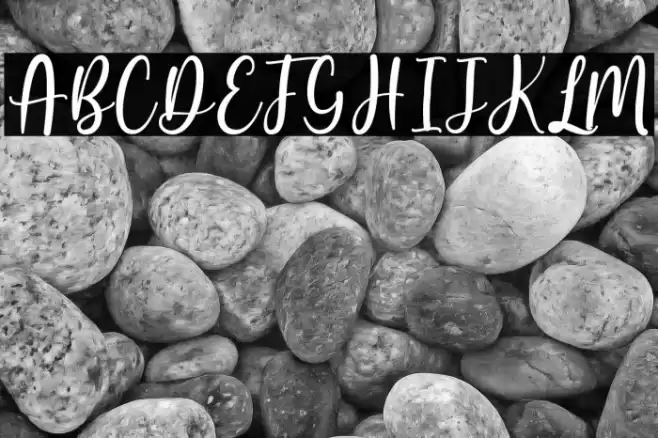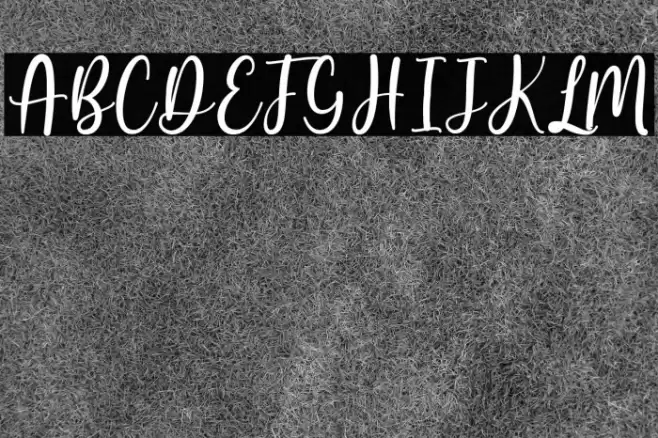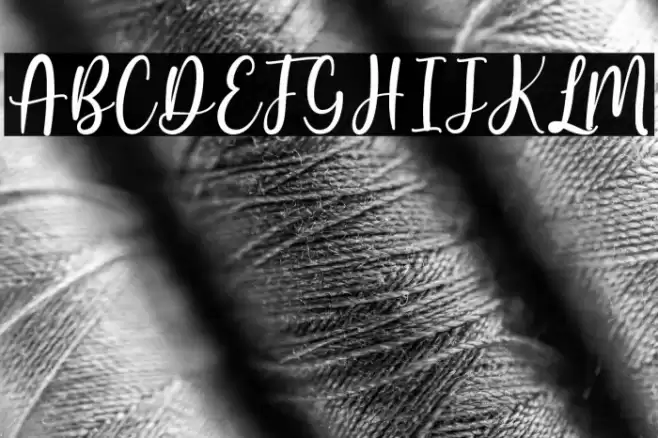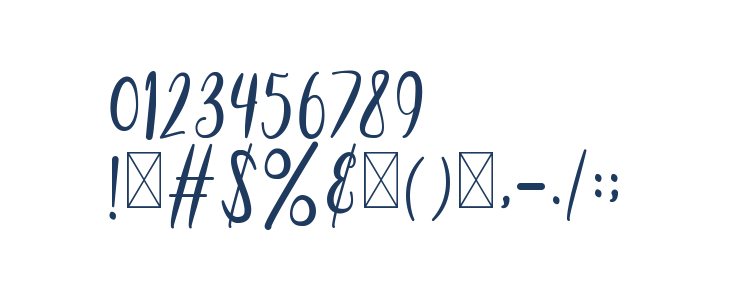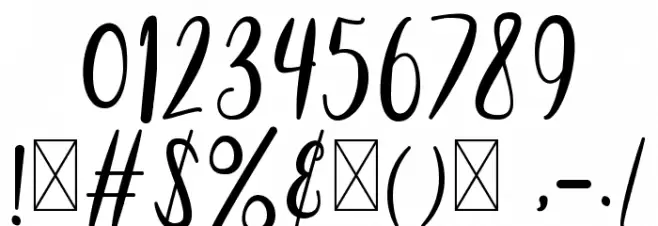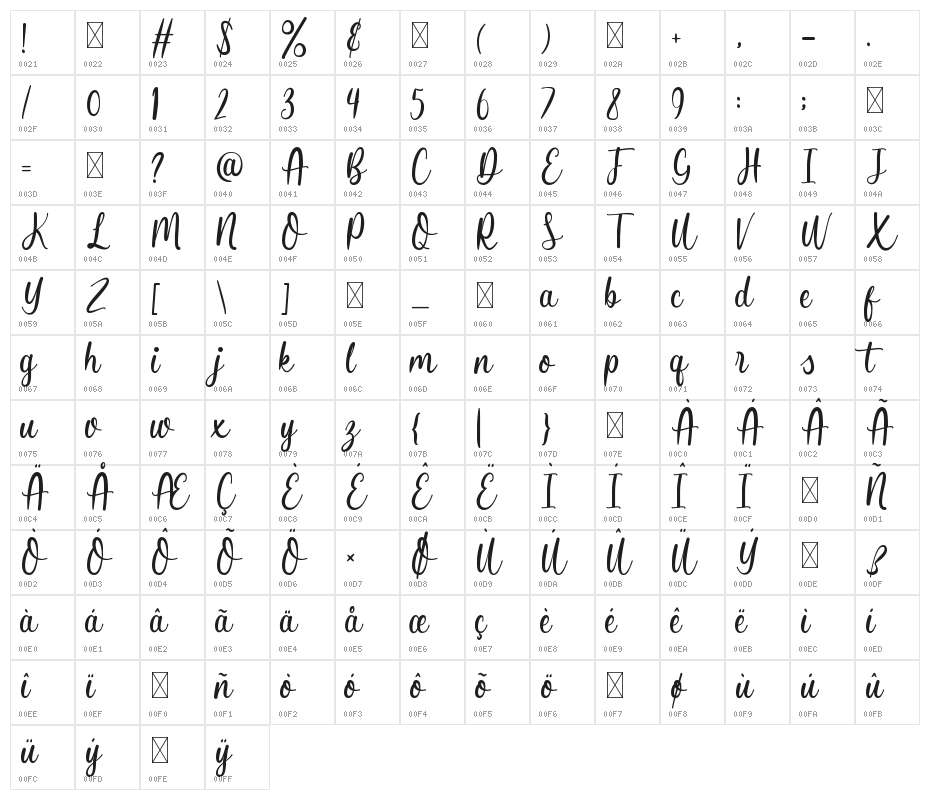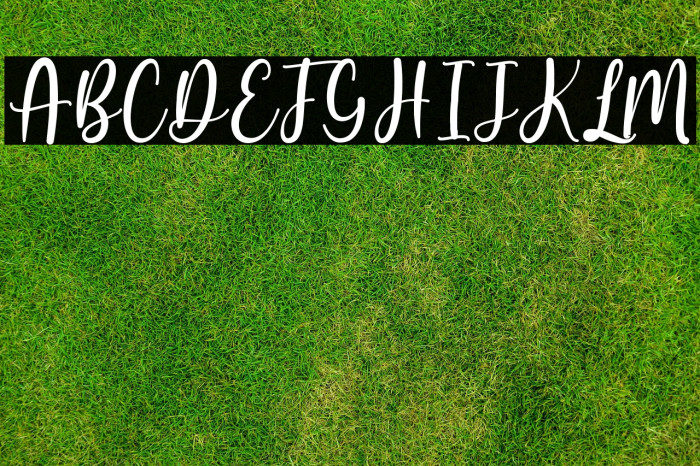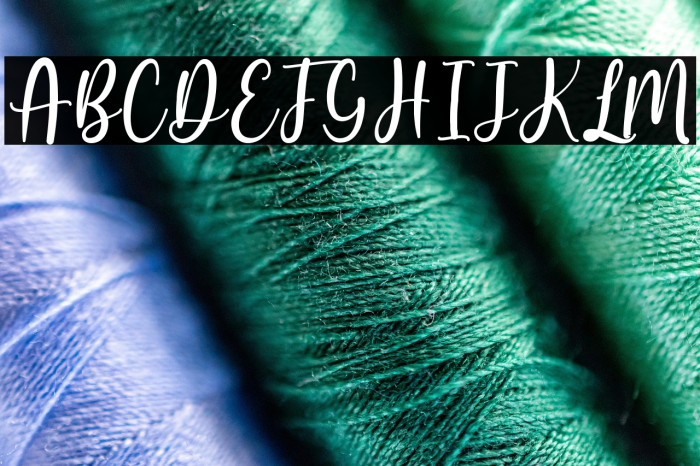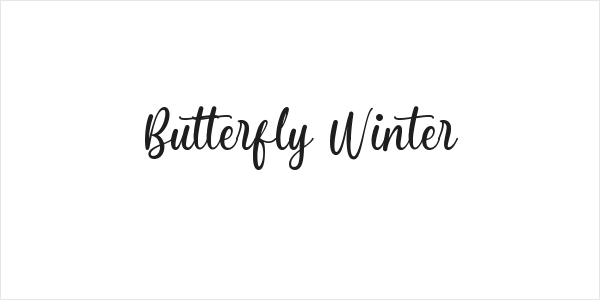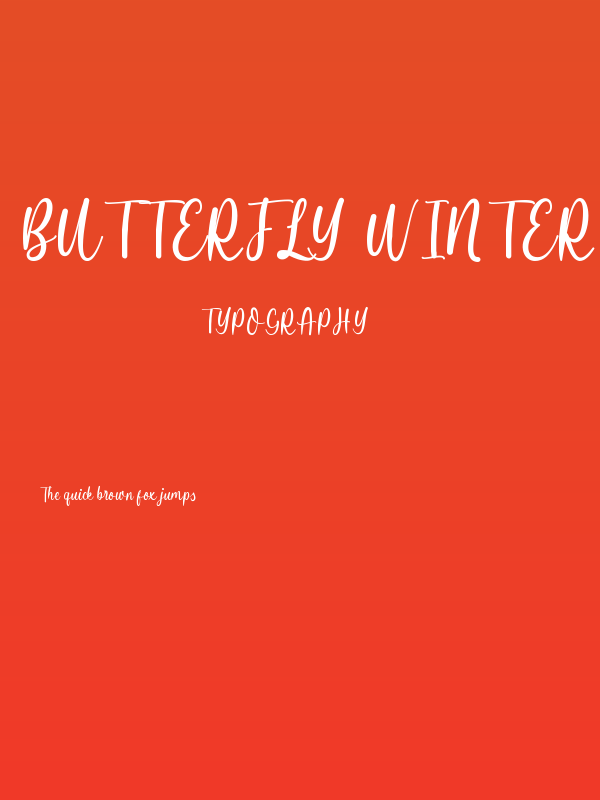
Butterfly Winter Font
Butterfly Winter Description
This font exudes a playful and elegant script style, characterized by its fluid, cursive strokes and a sense of movement. The uppercase letters are tall and slightly narrow, with a consistent slant that adds to the dynamic feel. The lowercase letters maintain a harmonious flow, with some characters featuring loops and swashes that enhance its decorative appeal. The numerals are well-integrated into the design, maintaining the same cursive style. Special characters are thoughtfully designed to match the overall aesthetic, making this font versatile for various creative applications.
A playful and elegant script font with fluid, cursive strokes from Uncategorized fonts.
- Font: Butterfly Winter
- Proposed Projects: Ideal for wedding invitations, greeting cards, branding projects, and social media graphics.
- Use Case: Logos, Invitations, Headlines